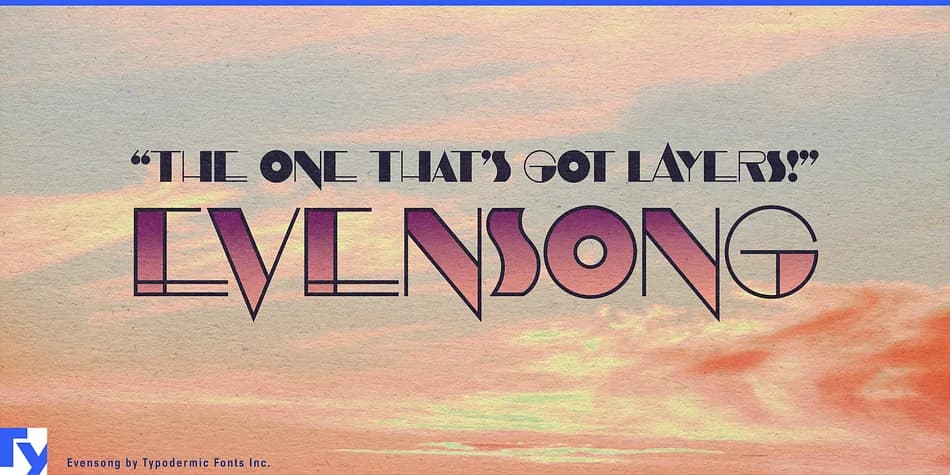
Evensong is built on radical stroke variation, where hairline-thin letterforms sit alongside bold, chunky strokes within the same character. This extreme contrast creates that unmistakable art deco geometry that stops you mid-scroll. Designed by Typodermic Fonts Inc., the typeface doesn't whisper; it demands attention through sheer visual weight distribution. The real power lies in its layering system. The Solid and Hollow styles stack independently, letting you apply multiple colors and build those retro effects that feel genuinely vintage without looking tired. Use it for luxury perfume labels, speakeasy posters, vintage album covers, high-end boutique branding, theatrical programs, or craft cocktail menus. The interplay of thick and thin makes every character feel almost architectural, with a sculptural presence most typefaces never achieve. The font covers Latin, Greek, Cyrillic, and over a hundred languages across various writing systems, so international projects stay typographically consistent.
This typeface belongs in work where bold personality trumps restraint. Think luxury fashion campaigns, nightclub flyers, gallery opening announcements, or any context where understatement isn't welcome. The extreme contrasts reward experimentation with color and scale. Grab it on Creative Fabrica and see what emerges when you push this typeface to its limits.
EVENSONG Font is a decorative font that shines as a display or heading face. Pair it with a clean sans-serif or serif font for body text β the contrast creates a clear hierarchy while the two styles stay balanced and easy to read.